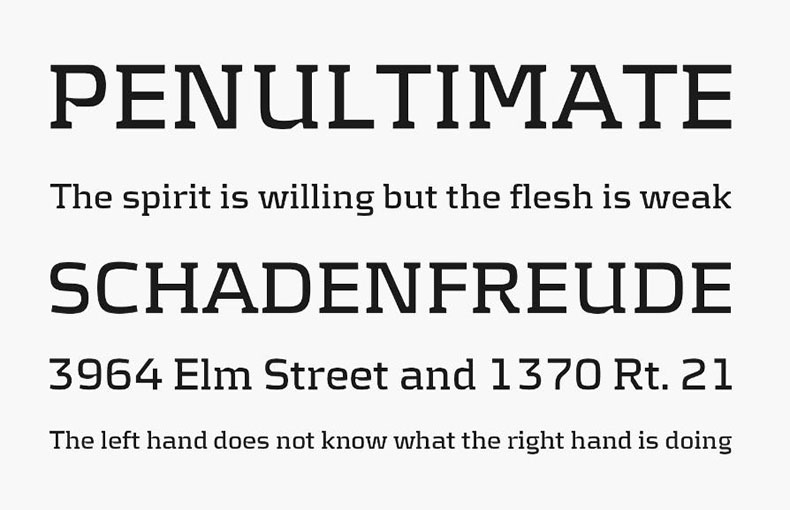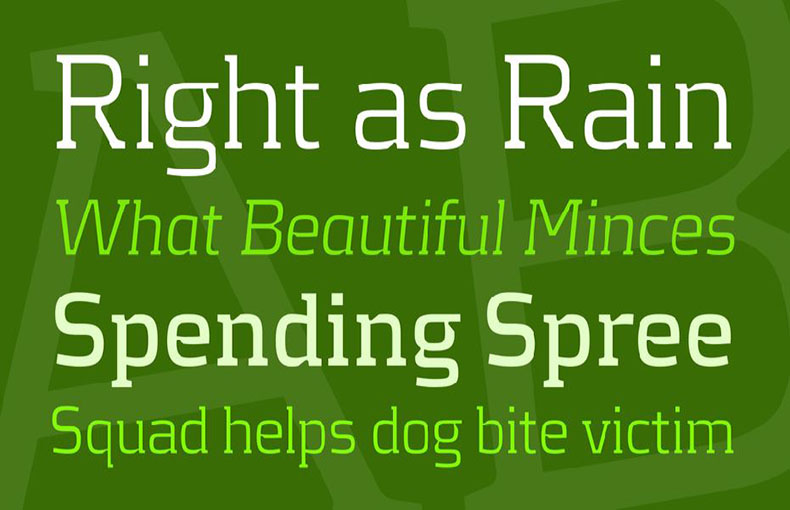
Kontrapunkt Font is a slab serif typeface that was designed by Kontrapunkt, a leading Danish design agency. It is a modern, yet timeless typeface that comes in three different styles: Regular, Bold, and Black.
This typeface includes 254 glyphs and 68 different languages. Its sleek and contemporary shape makes it suited for a range of uses, from editorial design to branding.
Kontrapunkt’s outstanding readability is one of its most distinctive qualities. Even at smaller sizes, the skillfully designed letterforms guarantee easy and clear reading.
Because of this, it’s an excellent choice for body text in print and digital media. So, It is a solid and visually appealing option for designers who want to give their work a modern and sophisticated appearance.
| Font Name: | Kontrapunkt Font Family |
| Style: | Slab Serif, Display, Typeface |
| Font Designer: | Kontrapunkt |
It is a great option that will make your message stand out and leave a lasting impact whether you’re building a logo, developing a marketing campaign, or publishing a book.
This wonderful typeface can be used in a variety of design contexts, including posters, daily reports, animated games, websites, social media posters, flyers, headers, titles, banners, advertisements, logo designs, product packaging, book layouts, and many more.
All things considered, Kontrapunkt Font is an adaptable and stylish typeface that works well for a variety of creative purposes.
Kontrapunkt Font FAQs:
What is Kontrapunkt Font?
A typeface, or a particular set of letters used in writing, is the Kontrapunkt Font. It is renowned for being straightforward, clear, and simple to read.
Why is Kontrapunkt Font special?
It is unique since it’s made to be comfy to read. The letters are balanced so that the eyes are not misled.
Where can I use Kontrapunkt Font?
It can be used in a variety of places, including websites, publications, posters, and other designs.